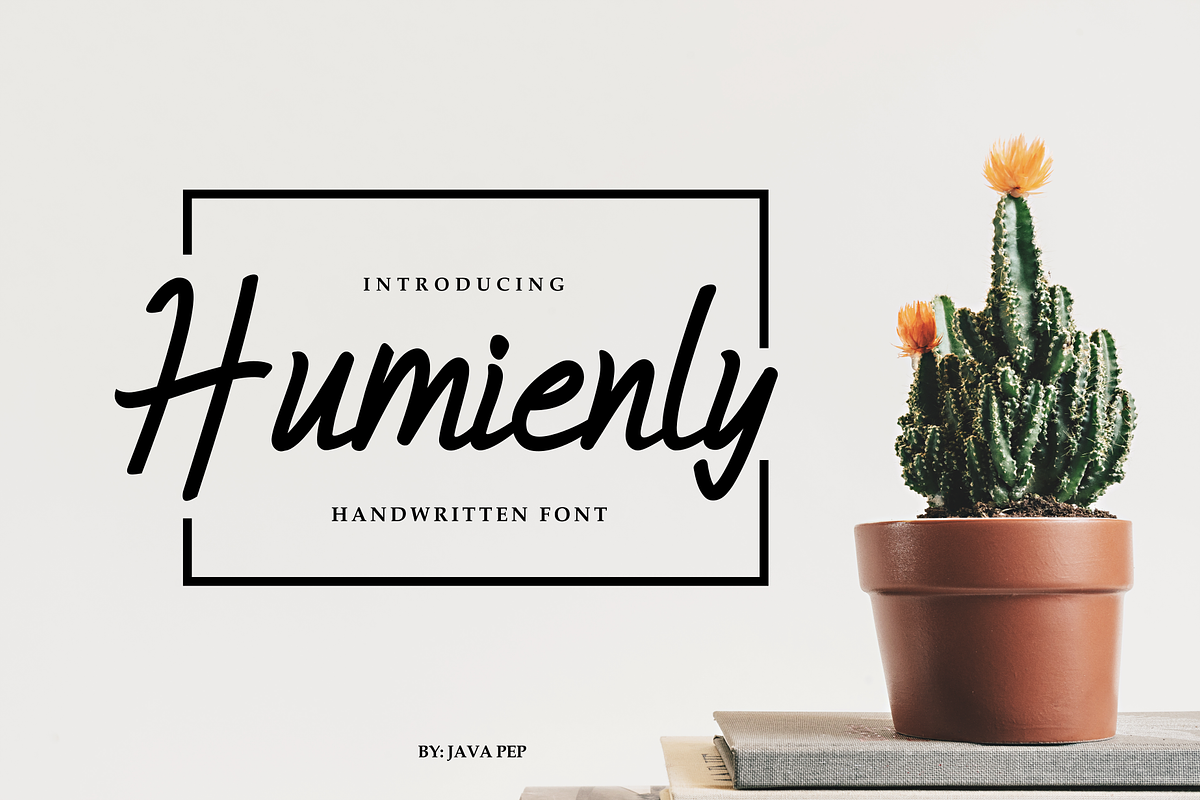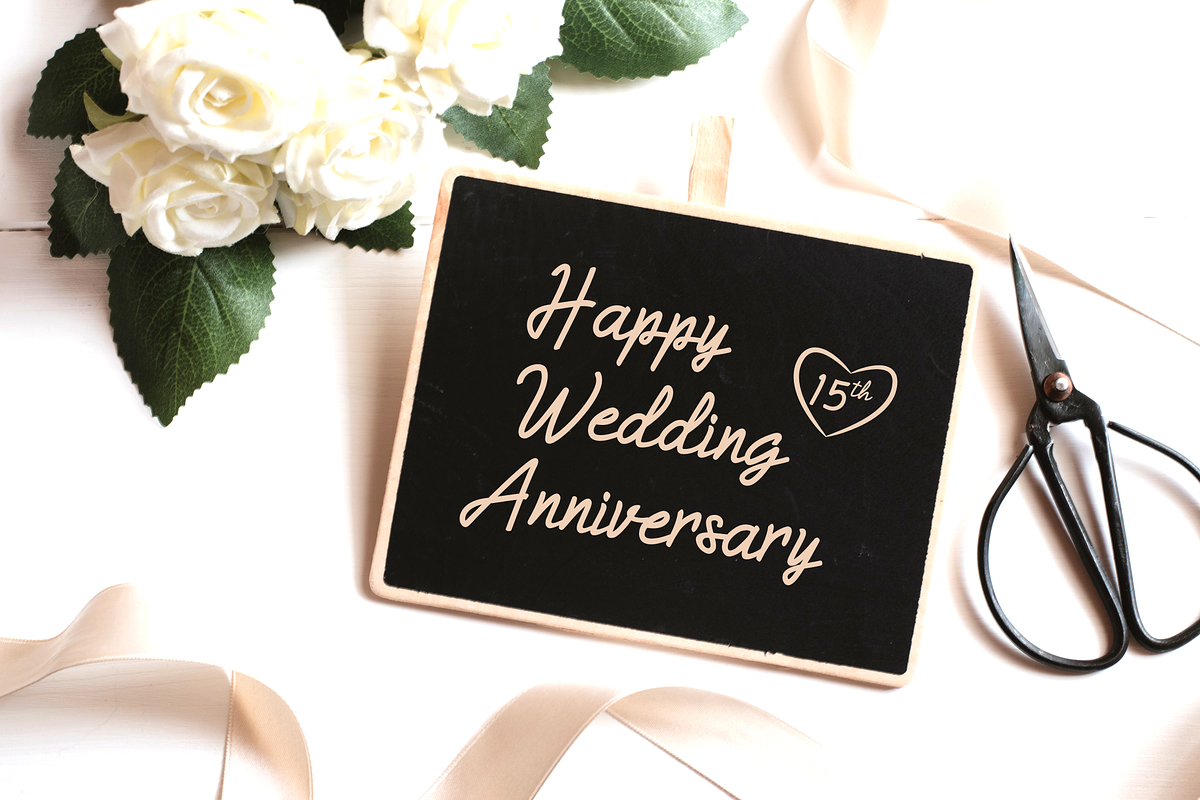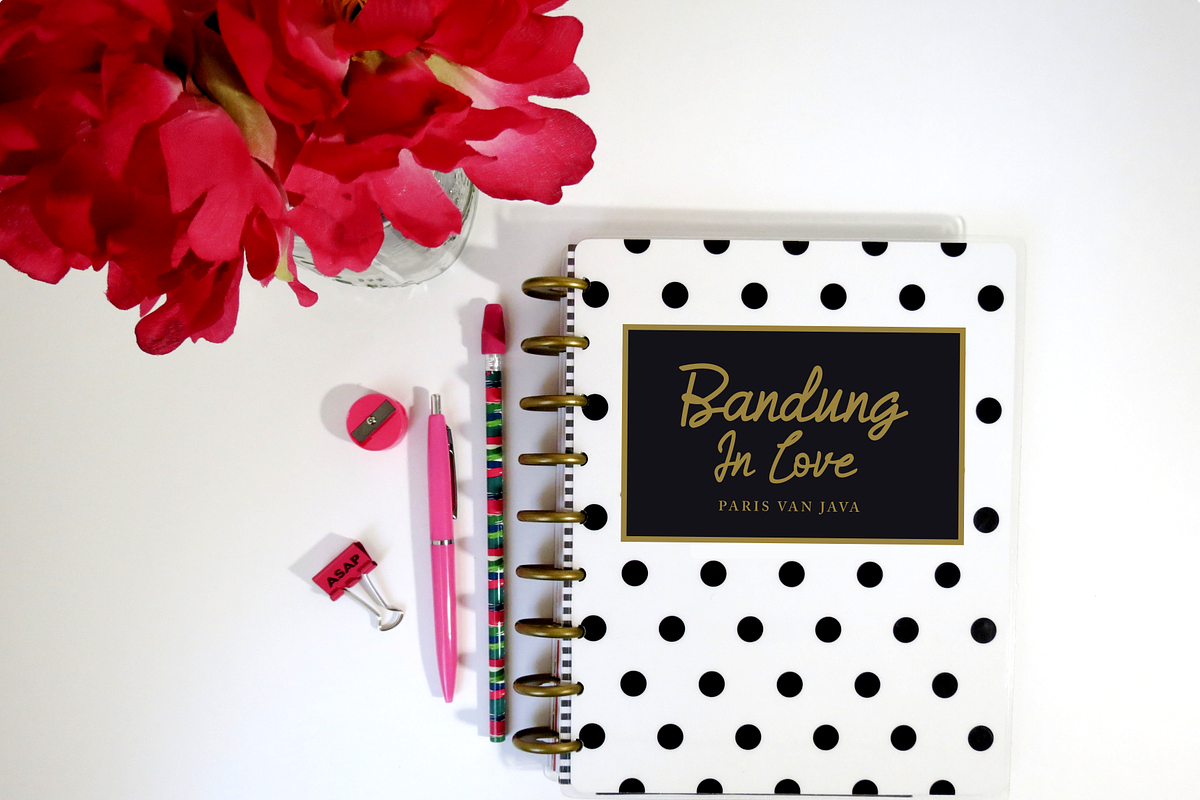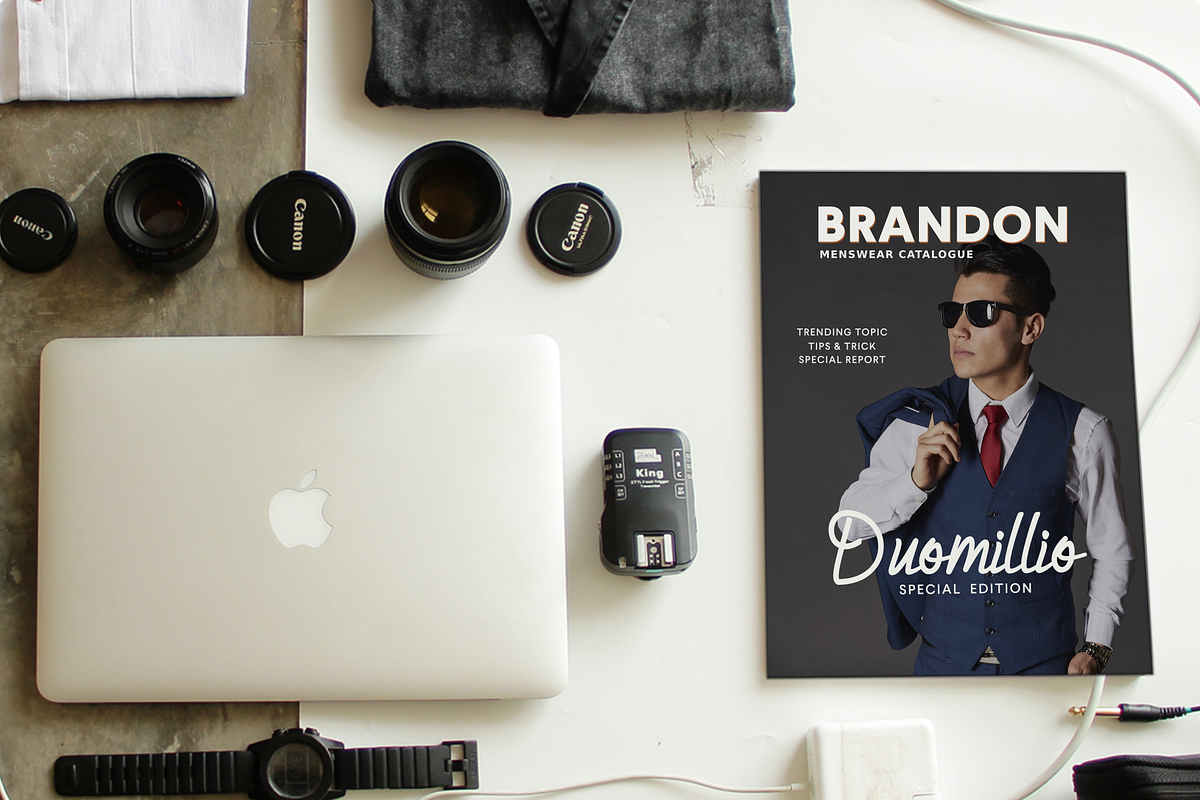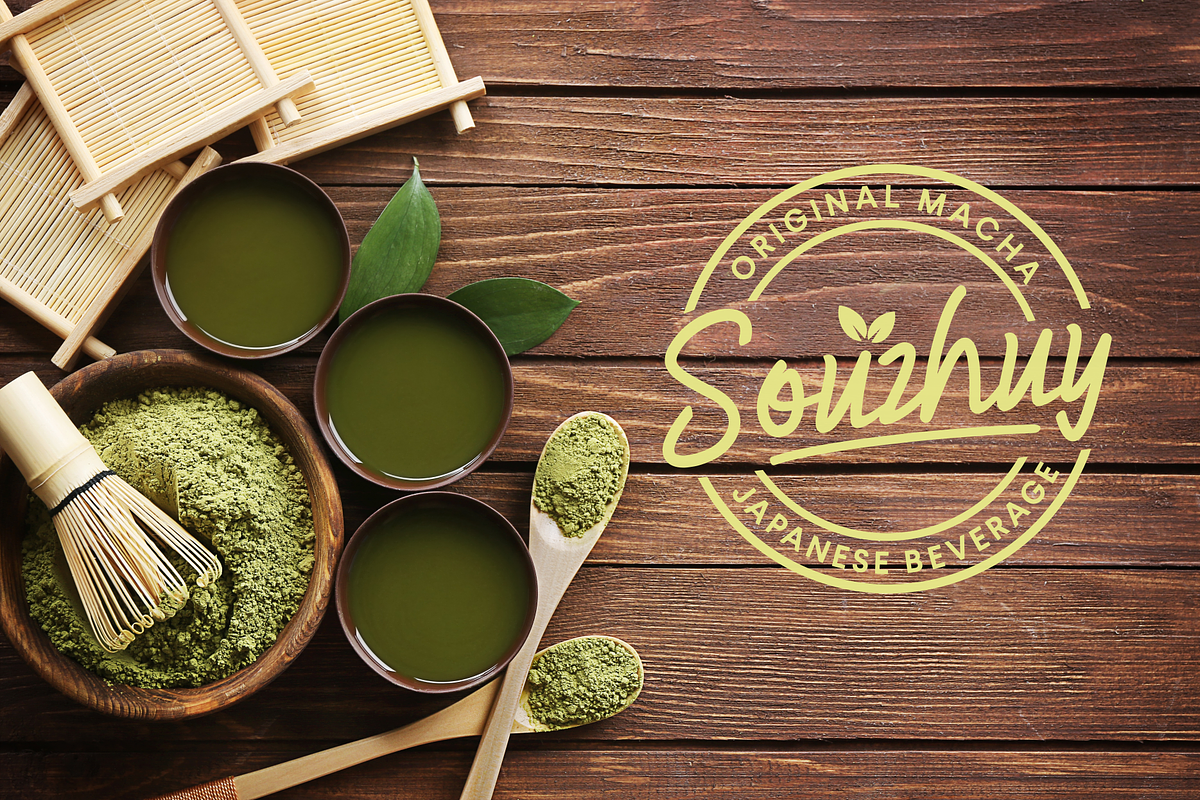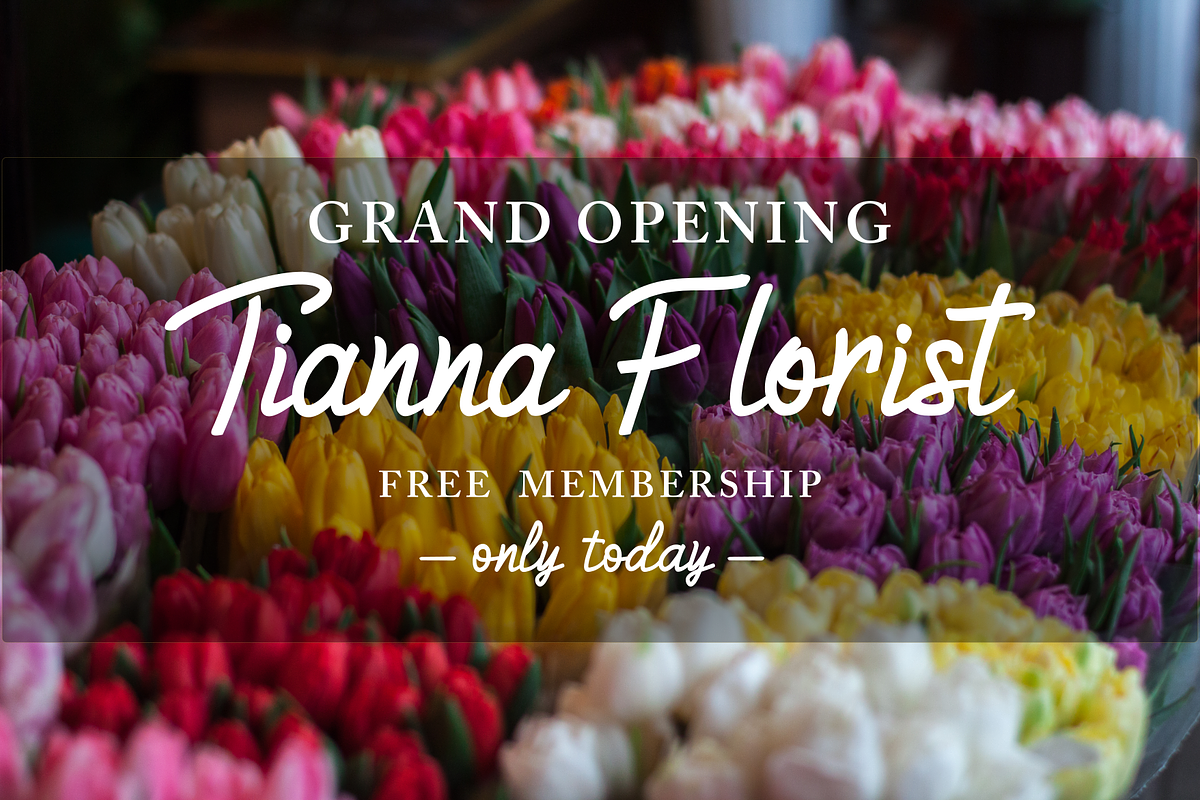
Humienly font
Proudly present the Humienly font. This font inspired of "humanly" so have taste like friendly for everyone;). Humienly is a handwritten font that has an elegnat, masculine but also feminine. Humienly is flexible font, this font can adjust to your needs and goals with various styles like modern, classic, masculine, feminime and etc.
1. Humienly and Humienly Alternate. Humienly is origianl font with upper, lower, numeral & punctuations. Humienly Alt is alternatif font of humienly, this font have style more cursive. You can change Humienly to Humienly Alt or combine both.
3. Multilingual font and lingatures. This font include multilingual support like Italian, French, Spain, Danish, Czech, Portuguese, Hungarian, Irish, English, Finnish, Norwegian, Polish etc. or contact me if you need to add your language. Ligatures is two or more of letters are joined as a single font like ss, ff, oo, lt and etc.
Humienly font by Java pep fits naturally into Branding, posters, packaging, typography.